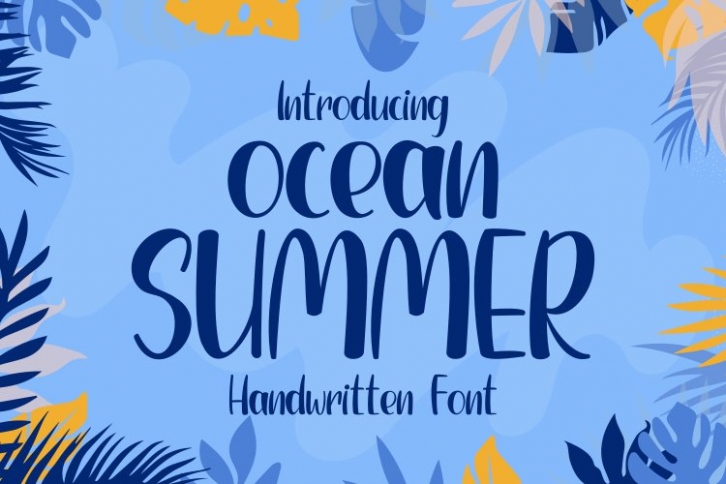
Ocean Summer is a beautiful font that was designed by Rvandtype. It's a great choice for designers and creatives who need such a font. It was released on June 6, 2021 and the file size is 6.54 MB. Ocean Summer may give a more youthful, expressive and casual look to your project. It is a very beautiful, refined, elegant, and high-quality font.